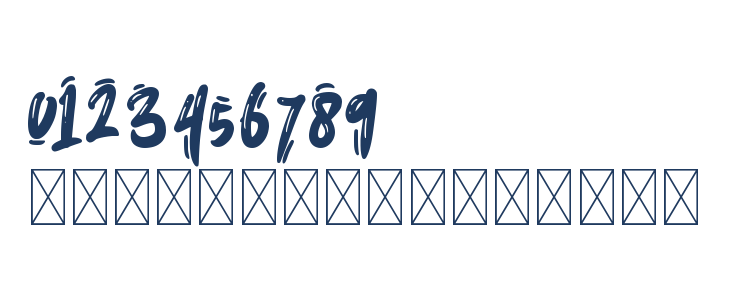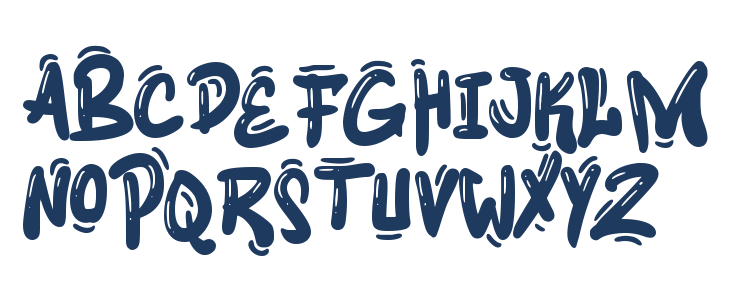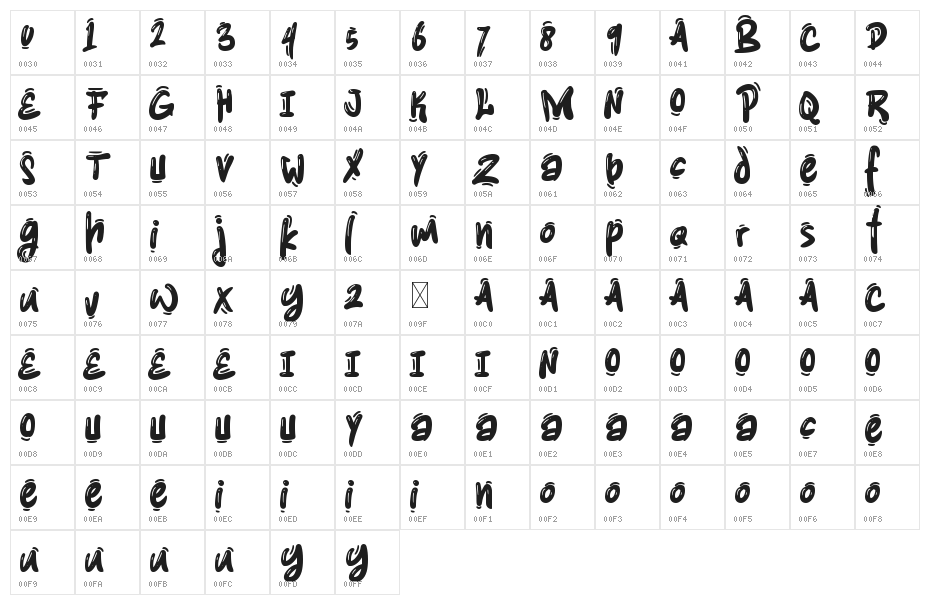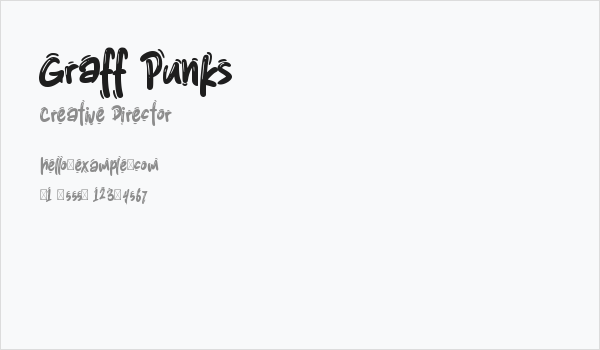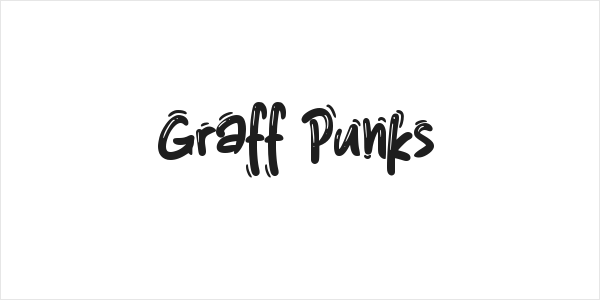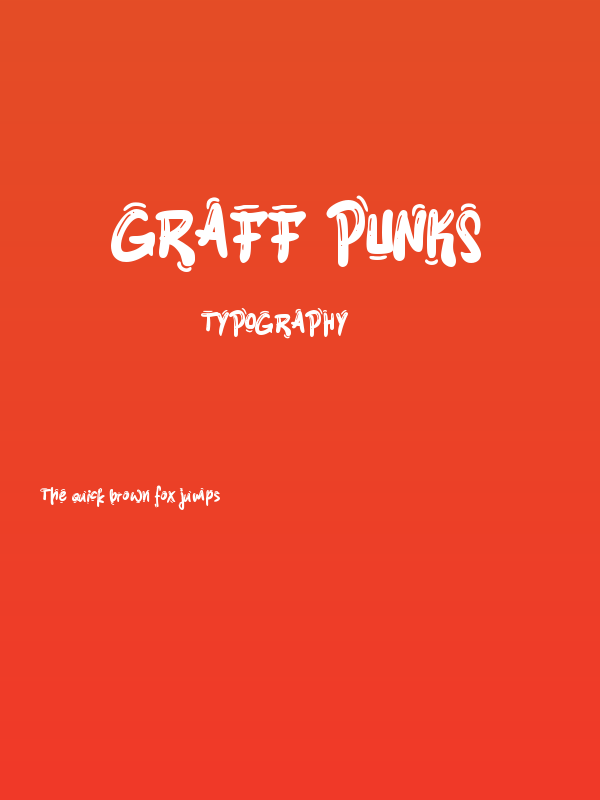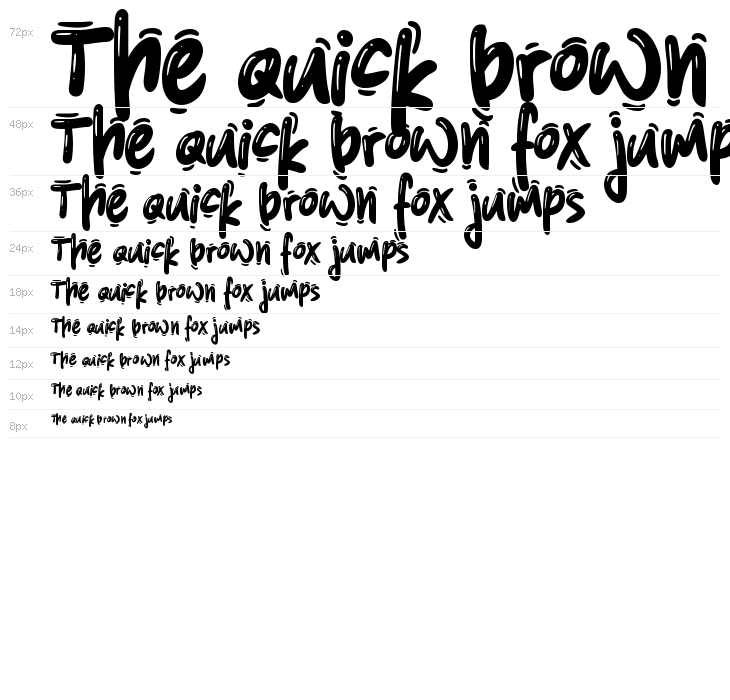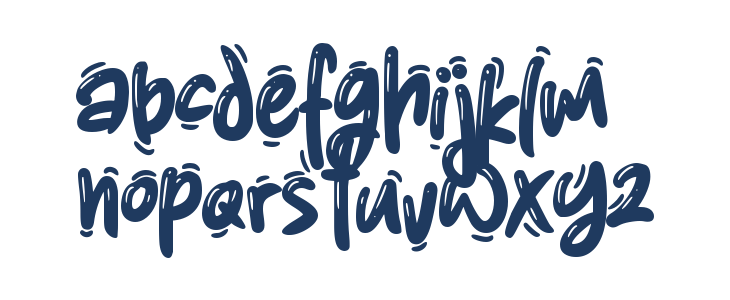
Graff Punks Font
Graff Punks Description
A bold, graffiti-inspired handwritten font with exaggerated strokes, playful curves, and dynamic accents above many characters, giving it an urban, energetic feel. The characters are rounded and irregular, mimicking spray paint or marker tags.
Overall StyleDecorative, Urban, Graffiti
Use CaseLogos, Headlines, Posters, Merchandise
Proposed ProjectsStreet art posters, youth-oriented branding, music album covers, event flyers, urban apparel, skate brands.